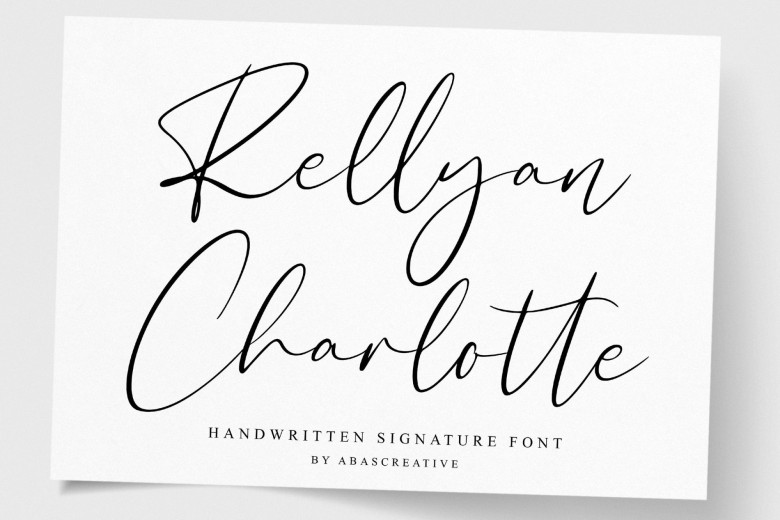
Rellyan Charlotte Handwritten Signature Font
Rellyan Charlotte Font is modern script font with perfect flow and natural handwriting. It is perfect for branding, signature, wedding invitation, promotion, product packaging, and other needs. You will get full set of lowercase and uppercase letters, numerals and punctuation, multilingual symbols, ligatures and extra swashes that giving realistic hand-lettered style.